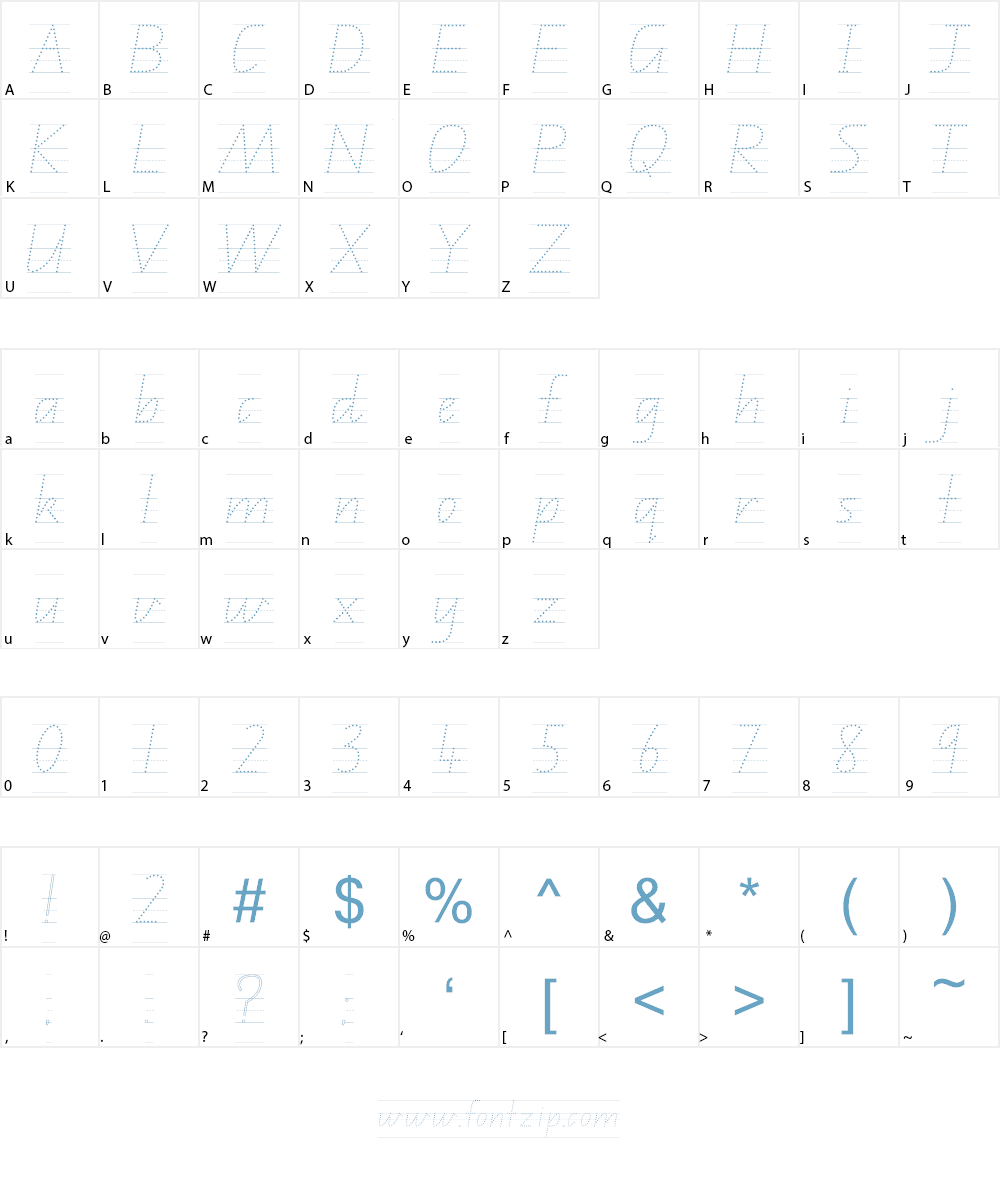
This handwriting style is used by schools throughout QLD, often called QBeginners print.
These Australian school fonts were hand written by Mez Merrit, traced into Inkscape and published using FontForge. They are free to use for educational purposes - because early education SHOULD be free!